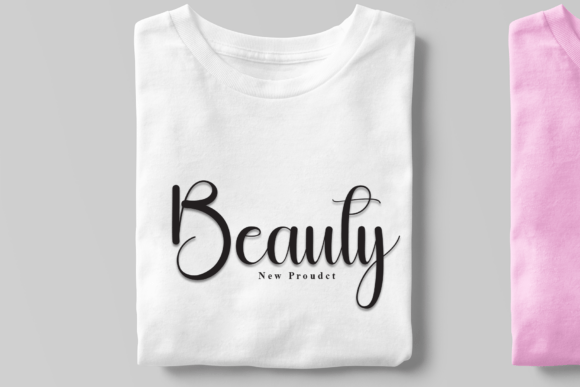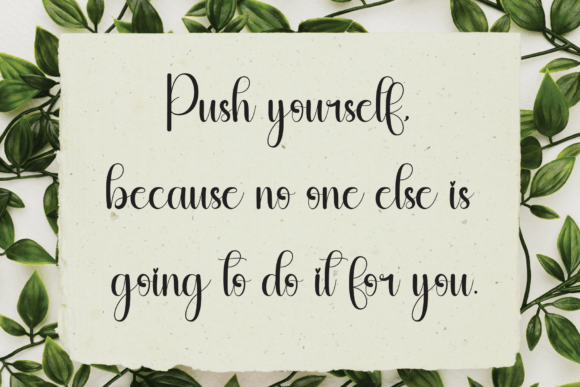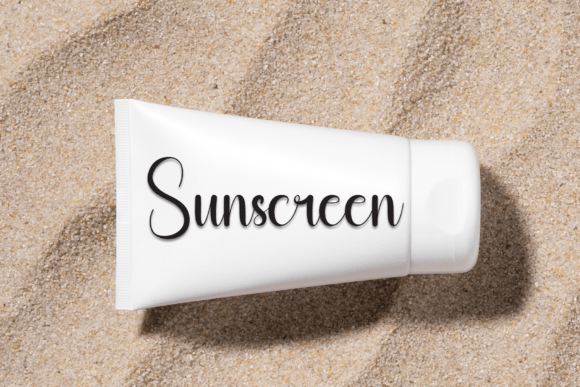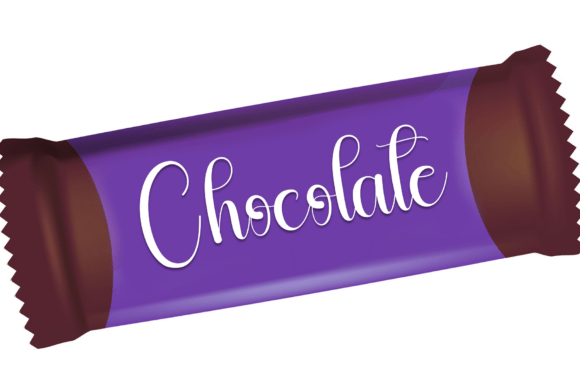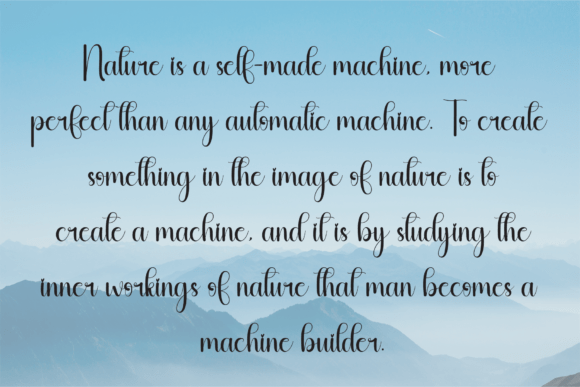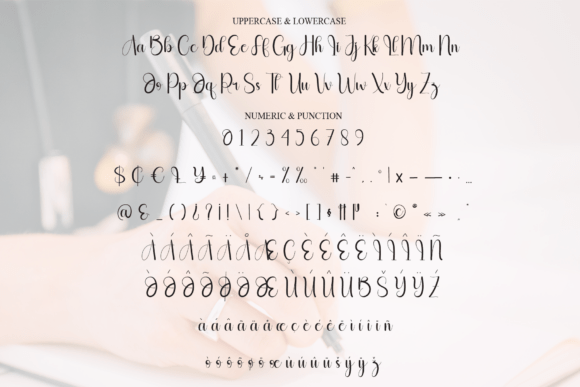
Introduction to Kinder Signature Font
Introducing a delightful and approachable handwritten display font.
With its charming flair, this font is the ideal choice for crafting wedding invitations, personalized cards, or any design that calls for a sprinkle of whimsy Its playful nature adds a jovial touch, making your creative work not only engaging but unforgettable.
Key Features of Kinder Signature Font
Why Choose Kinder Signature Font?
Kinder Signature Font offers exceptional quality and versatility, making it a valuable addition to your design toolkit. Whether you’re creating for personal projects or commercial use, Kinder Signature Font delivers professional results.